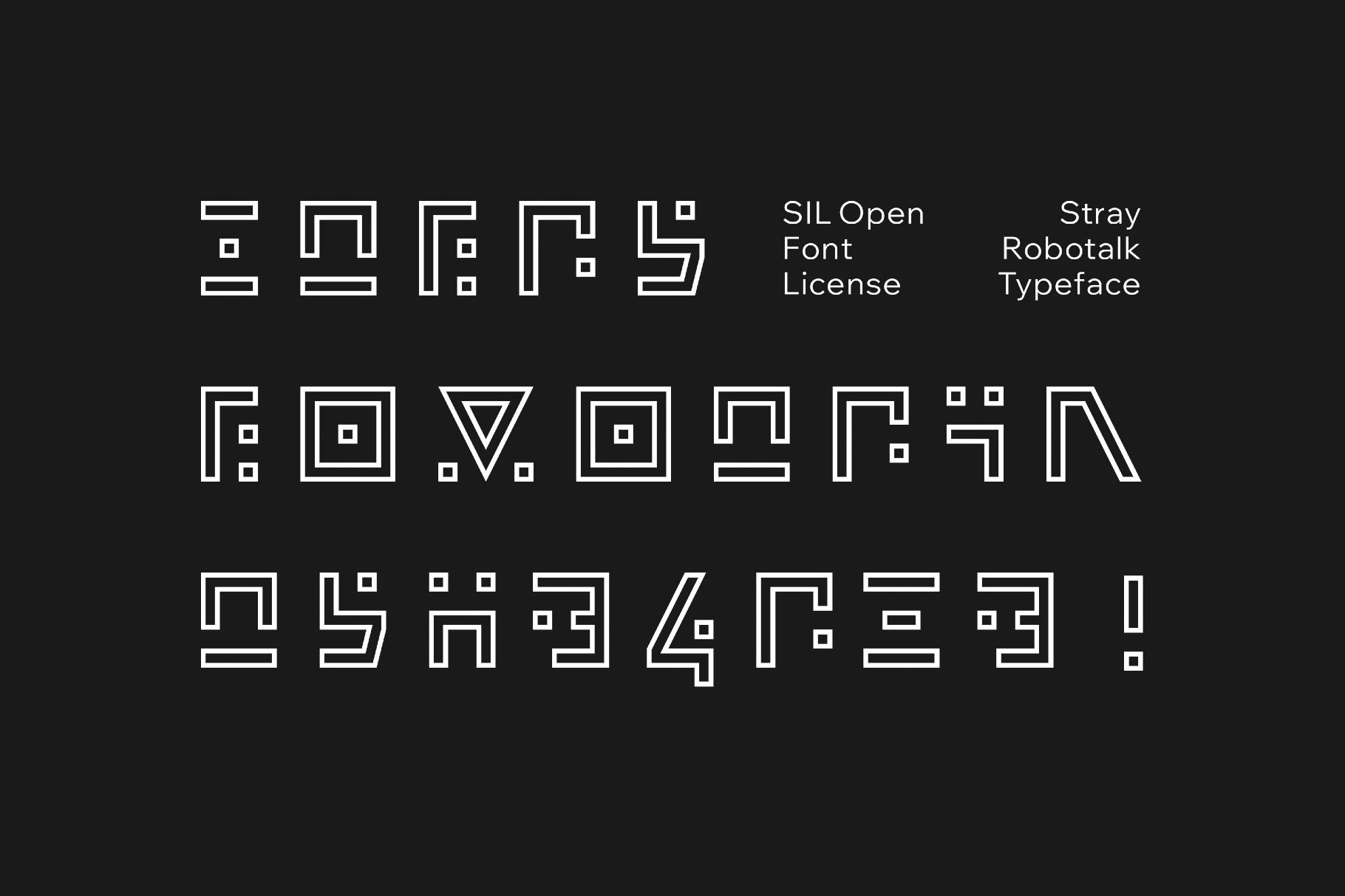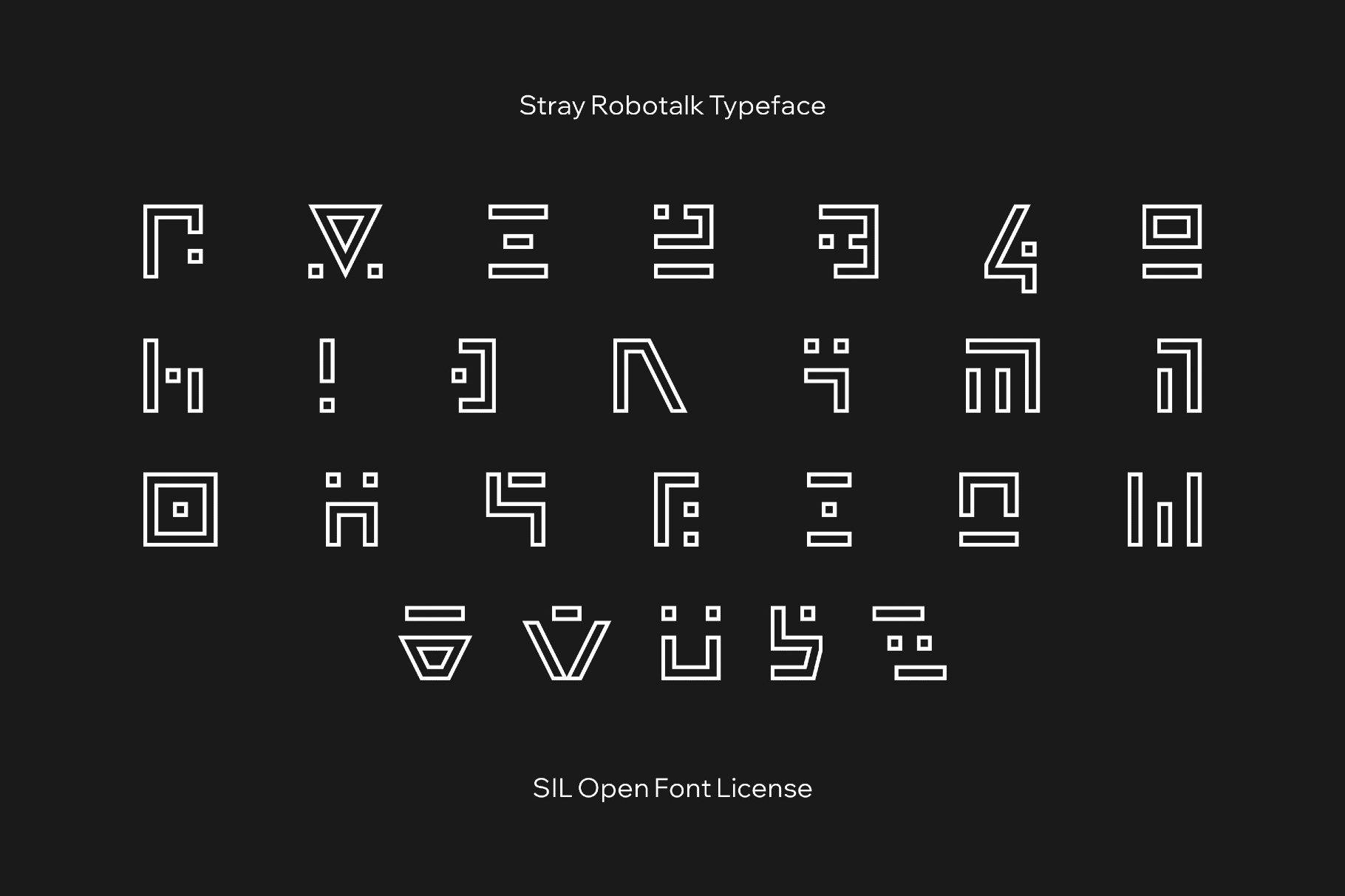
Stray Robotalk Typeface
Stray Robotalk takes its cue from the coded signage and machine language of the video game Stray, with angular, segmented forms that flash like a message across a neon alley wall. Its layered, cryptic quality works well for game graphics, poster headlines, sci-fi branding, album artwork, magazine covers, interface experiments, motion titles, and editorial layouts.
- uppercase letters A–Z;
- basic punctuation;